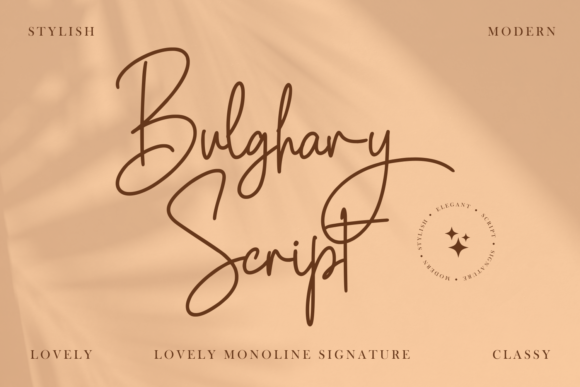
Discover the Ravishing Elegance of Bulghary Script
In the crowded world of modern typography, finding a script font that feels both timeless and fresh is like striking gold. Bulghary Script is precisely that—a premium font designed with exquisite thinness and delicate flourishes. It isn’t just a set of letters; it is a visual whisper, adding a layer of sophistication that louder typefaces simply cannot achieve. For designers, entrepreneurs, and creatives, this font offers a way to infuse projects with a ravishing, high-end aesthetic without overwhelming the viewer.
The Anatomy of Elegance: Visual Characteristics
At its core, Bulghary Script is defined by its thin lettered structure. Unlike heavy, bold display fonts that demand attention through sheer volume, this typeface commands the room through subtlety. The strokes are delicate, featuring a consistent, hairline weight that feels incredibly refined. This creates a sense of airiness, making it an ideal choice for layouts where negative space is just as important as the text itself.
The personality of this font is undeniably romantic and luxurious. It mimics the fluidity of natural handwriting but elevates it with a polished, professional edge. You will notice the smooth curves and the seamless flow between characters, which gives the text a continuous, rhythmic movement. While many handwritten fonts can look messy or unstructured, Bulghary Script maintains a strict baseline and legibility. It balances the organic feel of a pen with the precision of digital design.
Because it is a PUA encoded typeface, accessibility is a major feature. This means you don’t need to be a technical wizard to access all the hidden gems within the font file. The glyphs and swashes—those beautiful decorative tails and flourishes—are easily accessible in any standard character map software, including the basic ones built into Windows and Mac. This accessibility democratizes high-end design, allowing anyone to create those gorgeous, swooping connections that make script typography so captivating.
Strategic Applications: Where to Use Bulghary Script
Understanding where a font works best is half the battle in brand identity and design. Bulghary Script shines brightest in contexts where emotion, elegance, and exclusivity are the primary goals.
Branding and Logo Design
For businesses in the luxury, beauty, fashion, or wedding sectors, logo design is about more than just a name—it’s about a feeling. Bulghary Script works exceptionally well as a primary logotype for boutique brands. Imagine it on a business card for a high-end florist or a cosmetic brand; the thin strokes suggest care, precision, and luxury. However, because it is a display font, it works best when paired with a neutral sans serif font for body text to ensure the brand remains readable across all touchpoints.
Publishing and Editorial Design
In the realm of editorial design, this typeface is a powerful tool for headers and pull quotes. It adds a human touch to magazines, book covers, and blogs. If you are a publisher or a blogger, using Bulghary Script for your article titles can break the monotony of standard serif or sans-serif headers. It draws the eye immediately, inviting the reader into the story. It is particularly effective for lifestyle blogs, travel journals, and creative portfolios where the visual tone needs to match the content's creativity.
Digital Presence and Social Media
The digital space requires fonts that render cleanly on screens. While ultra-thin fonts can sometimes disappear on mobile devices, Bulghary Script is designed to retain its charm at medium sizes. It is a fantastic choice for social media graphics, particularly for Instagram quotes, Pinterest pins, or Facebook headers. For web design, it should be used sparingly—perhaps for a hero section headline or a navigation menu accent—to maintain that delicate aesthetic without sacrificing user experience.
Packaging and Physical Products
Packaging design relies on shelf appeal. The thin, ravishing style of Bulghary Script makes it perfect for product labels on items like artisanal foods, perfume bottles, or stationery. It suggests that the product inside is crafted with attention to detail. The font’s ability to connect letters seamlessly allows for creative wordmarks that look custom-drawn, giving a small business the visual identity of a major corporation.
The Impact on Perception and Readability
Typography is psychology. The font you choose influences how your audience perceives your brand before they even read a single word of your copy. Bulghary Script influences perception by signaling exclusivity and artistic flair. It tells the viewer that the creator values aesthetics. This can significantly boost audience engagement, as people are naturally drawn to beautiful things.
However, this influence comes with a responsibility to readability. Because Bulghary Script is a thin lettered typeface, contrast is key. If you place it on a busy background or a color that is too close to the font’s shade, the text will vanish. It requires a clean background to breathe. Furthermore, while it is legible for short phrases, it is not a body text font. Using it for long paragraphs will strain the eyes. Visual hierarchy dictates that Bulghary Script should sit at the top of the pyramid—used for impact, not for instruction.
When used correctly, it enhances brand consistency. By pairing it with a sturdy serif font or a geometric sans serif font, you create a dynamic visual contrast. The script provides the emotion, while the secondary font provides the structure. This balance is the hallmark of professional design.
Practical Guidance for Designers and Creators
Integrating a new font into your workflow requires a bit of strategy. Here is how to get the most out of Bulghary Script:
- Testing Font Pairings: Don't just drop the font into a document. Experiment with pairings. Try placing Bulghary Script next to a bold, all-caps sans serif font. The contrast between the delicate script and the strong sans-serif creates a modern, high-fashion look. If you prefer a classic vibe, pair it with a transitional serif font.
- Leveraging Swashes: Take the time to explore the alternate characters. As a creative font with PUA encoding, it likely contains different styles for the beginning and end of words. Using these swashes can turn a simple word into a piece of art, but use them selectively so the text doesn't become illegible.
- Evaluating Project Fit: Be honest about the project's tone. If you are designing a tech startup’s pitch deck, Bulghary Script might be too soft. If you are designing a wedding invitation or a luxury real estate flyer, it is the perfect design asset.
- Commercial Licensing: Always check the license. If you are using this for a client's logo or on merchandise for sale, ensure you have the appropriate commercial license. A premium font like this is an investment in quality, and respecting the licensing protects both you and the type designer.
- Color and Size: When setting text in Bulghary Script, size matters. It usually looks best at larger sizes, such as 24pt or higher. Avoid harsh black on white if the strokes feel too thin; sometimes a dark charcoal grey or a rich jewel tone feels softer and more luxurious on the eyes.
Ultimately, Bulghary Script is more than just a typeface; it is a stylistic tool. It allows small business owners, marketers, and crafters to bridge the gap between amateur design and professional branding. By respecting its delicate nature and utilizing its full range of glyphs, you can create designs that are not only gorgeous but also strategically effective. Whether you are launching a new brand or refreshing an existing one, this font offers a timeless elegance that will serve you well across print, digital, and packaging mediums.